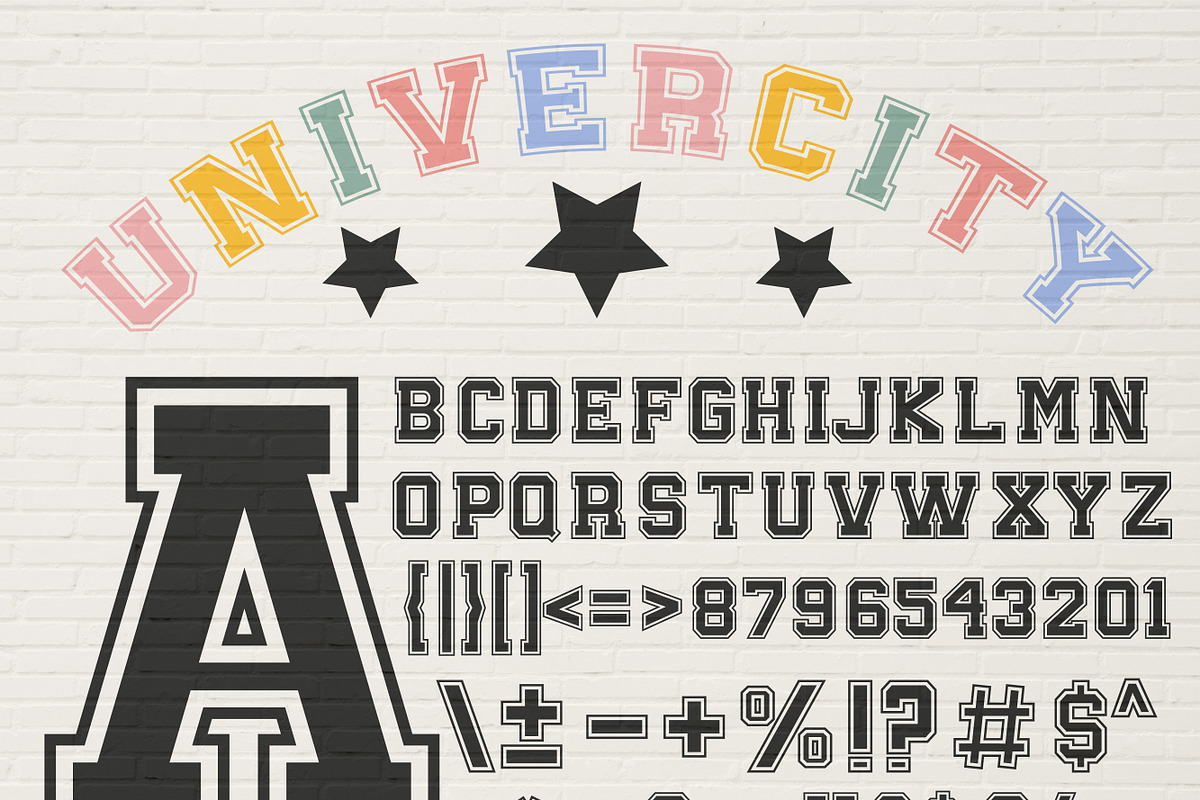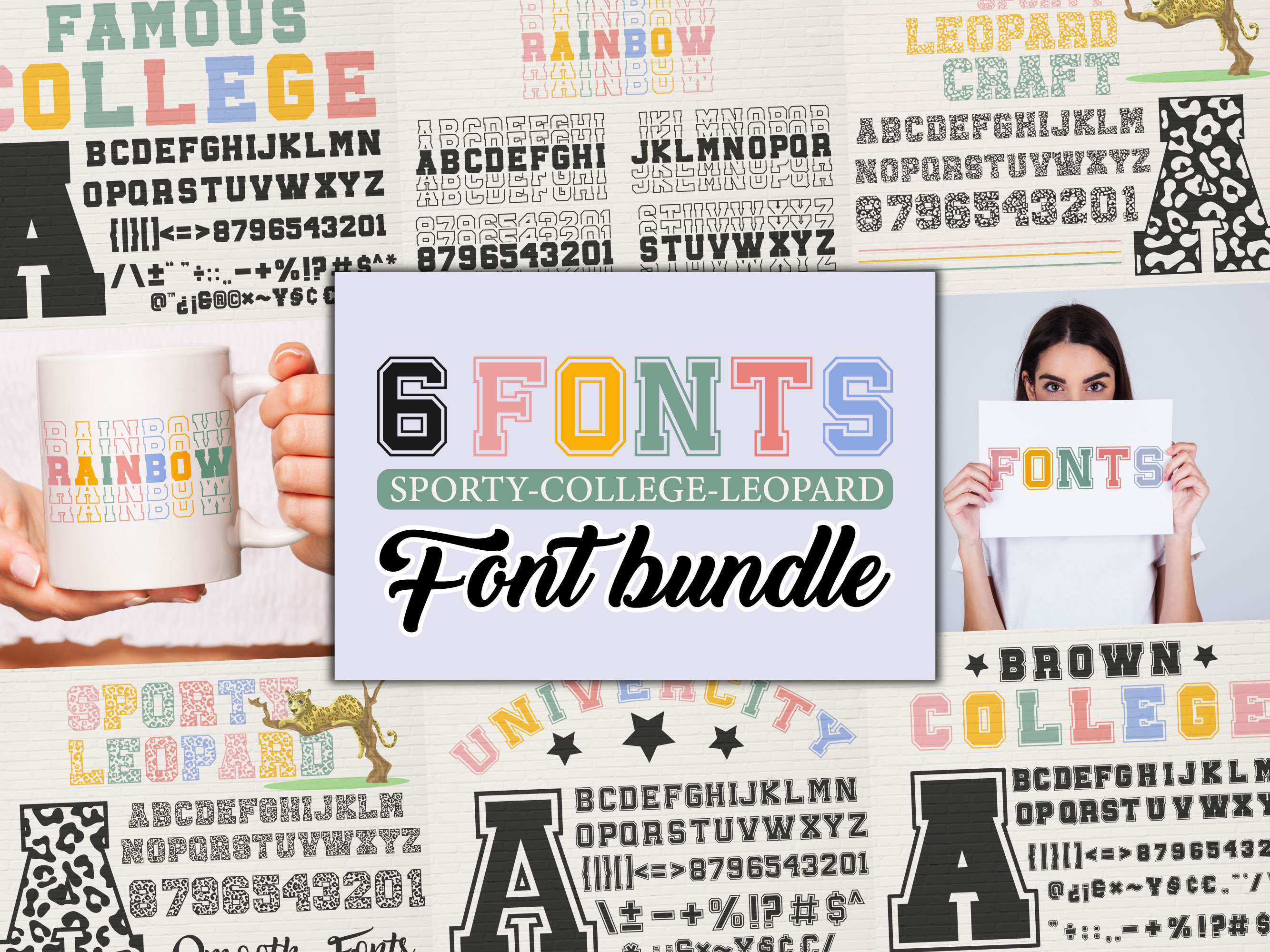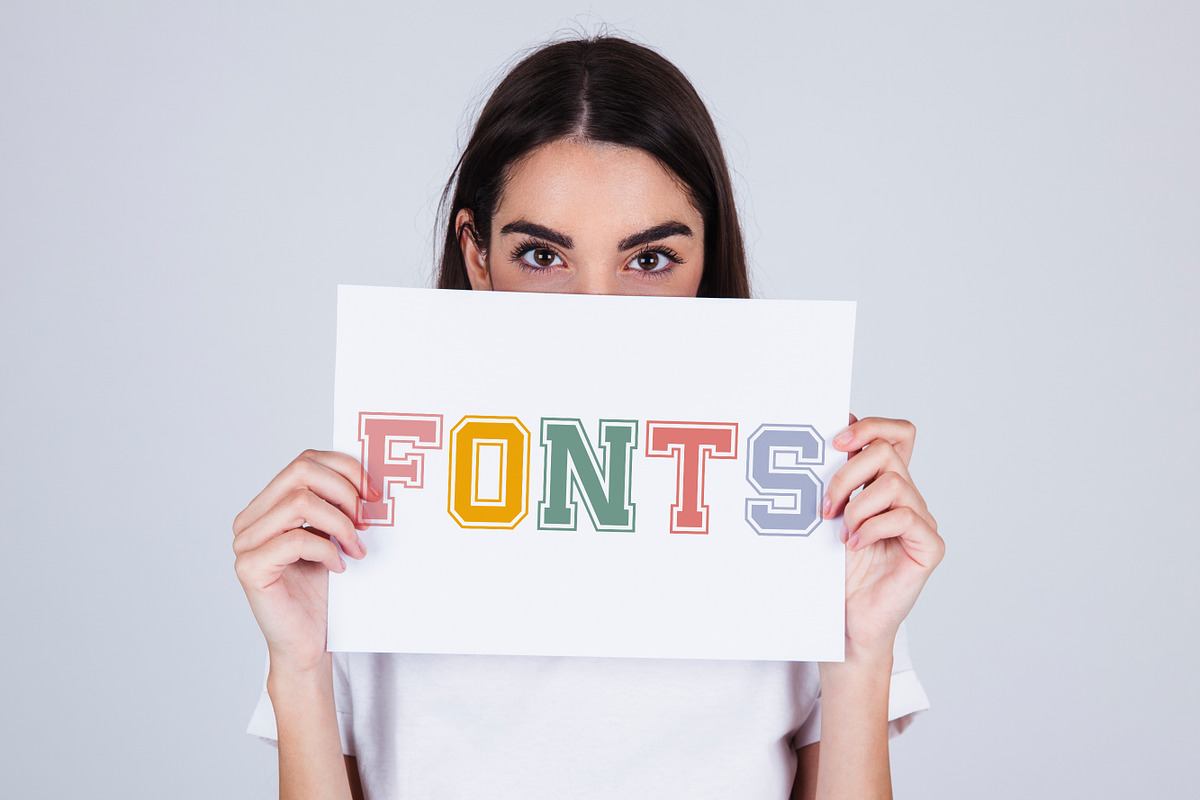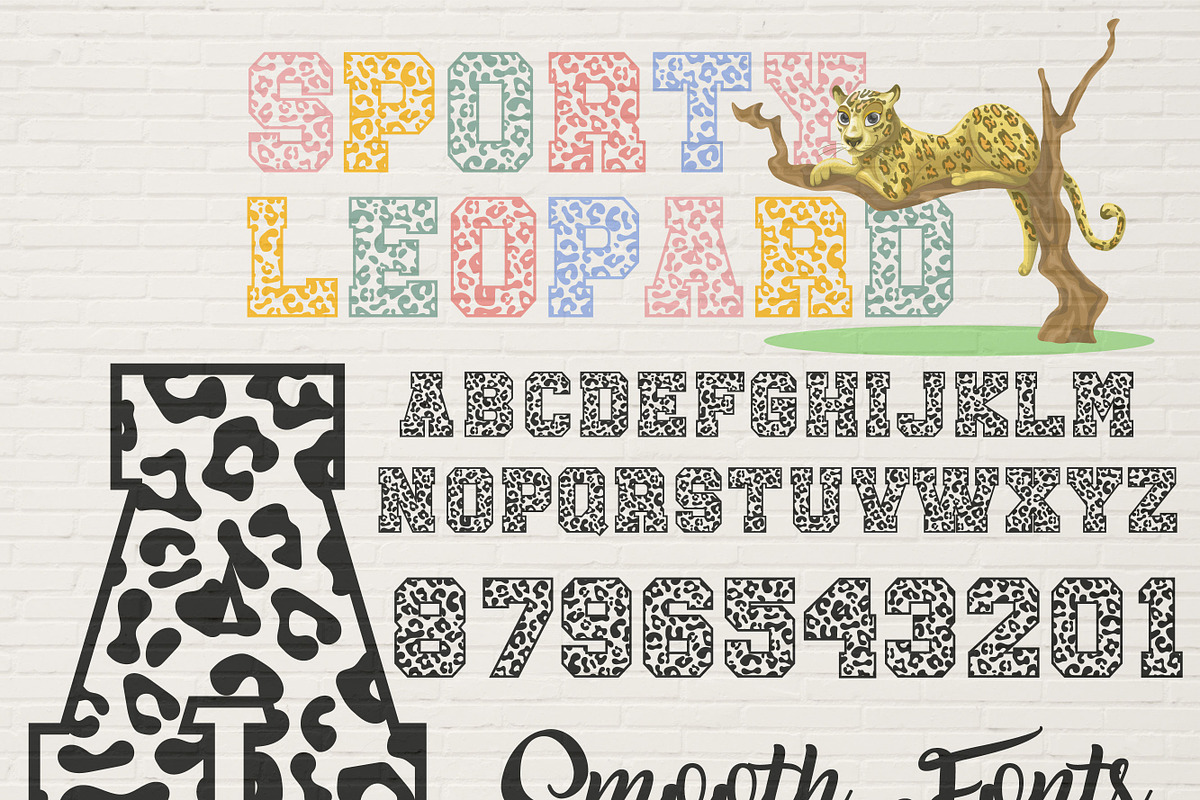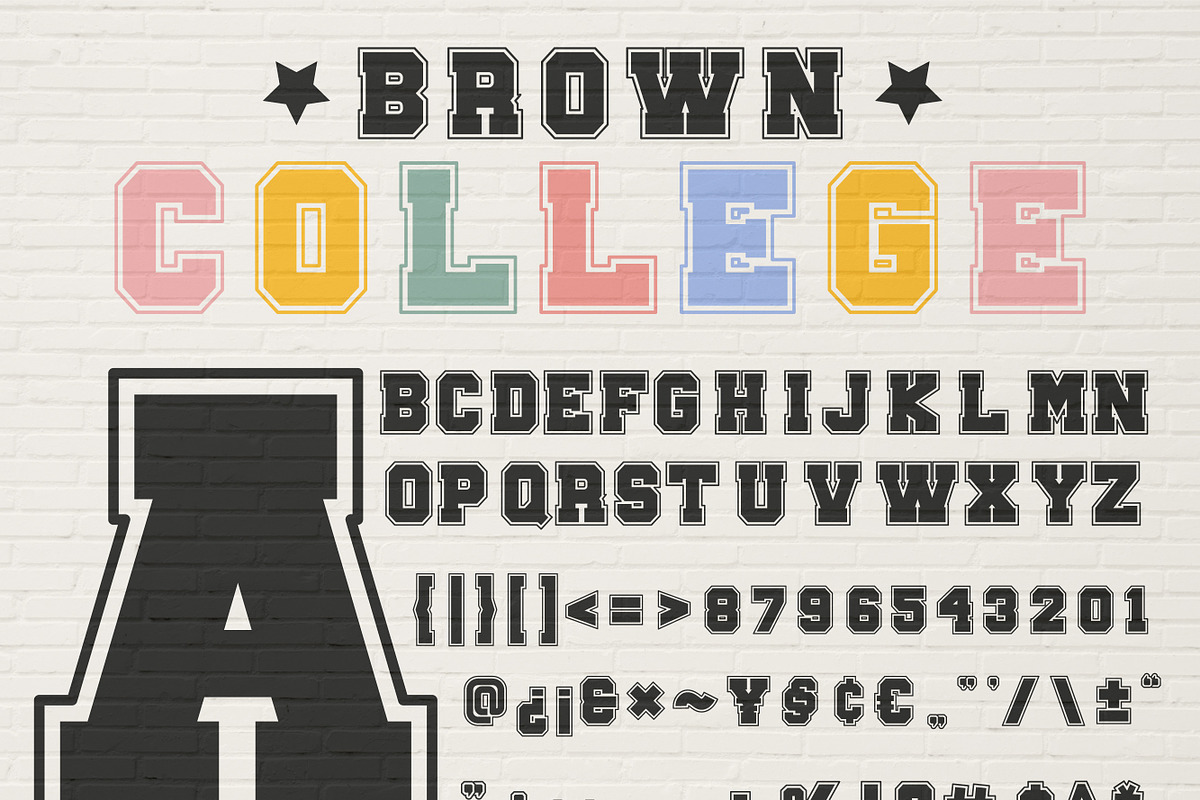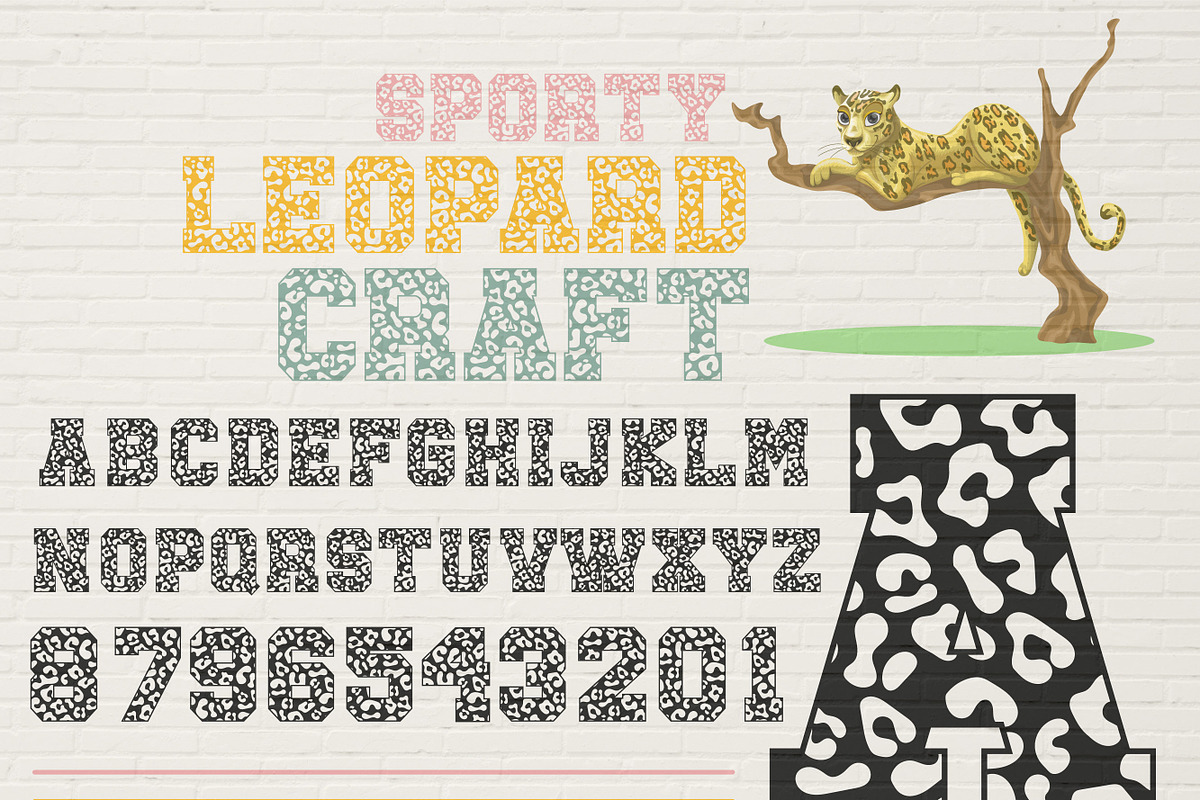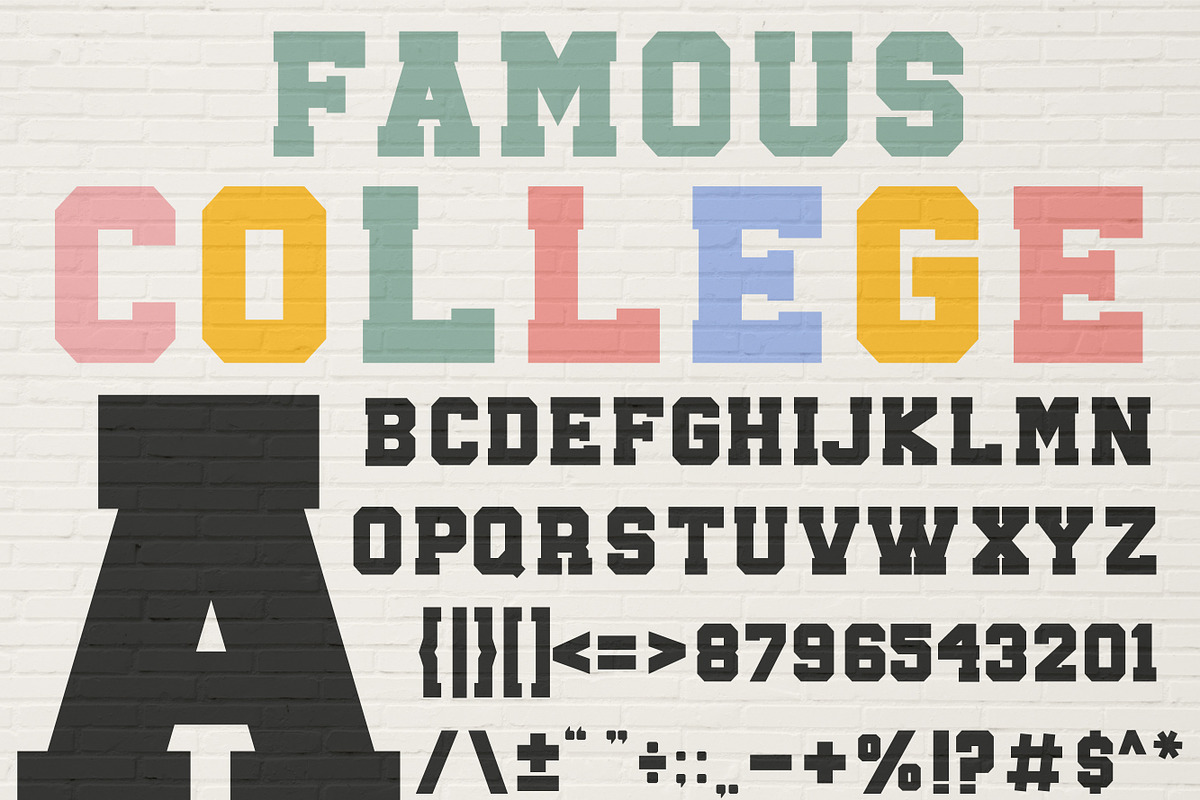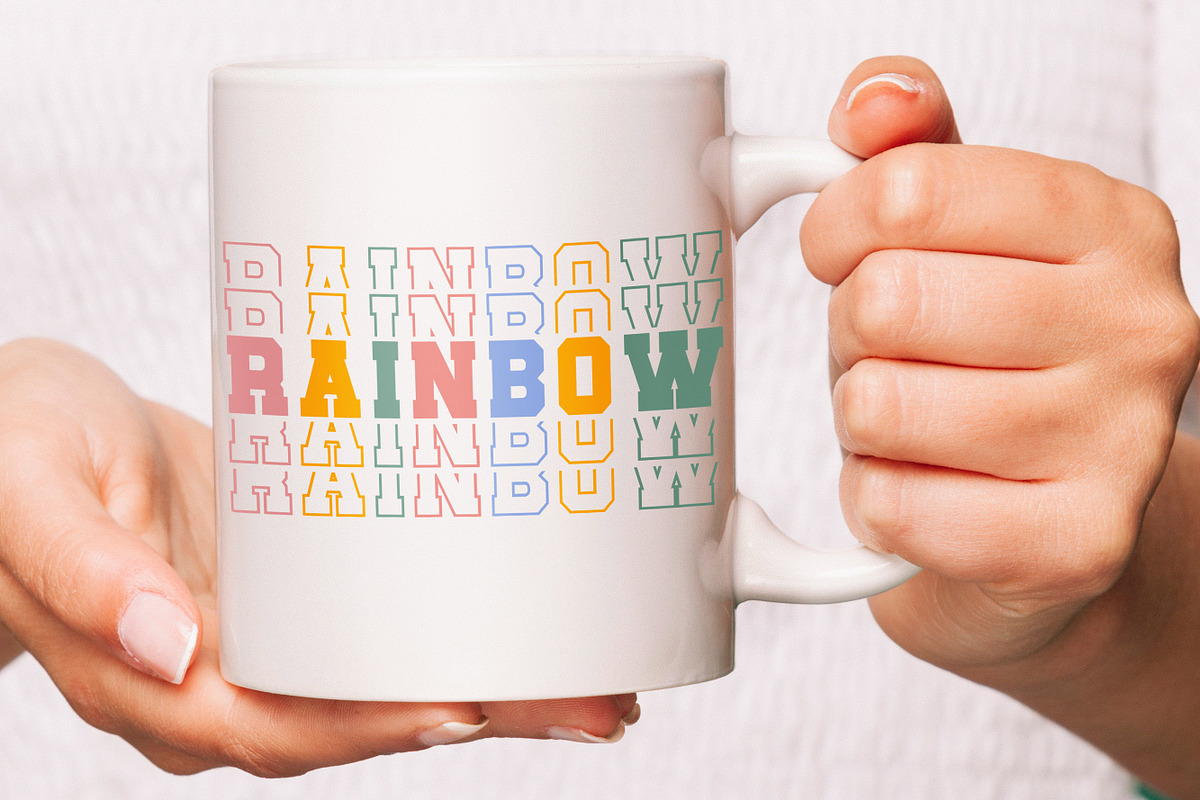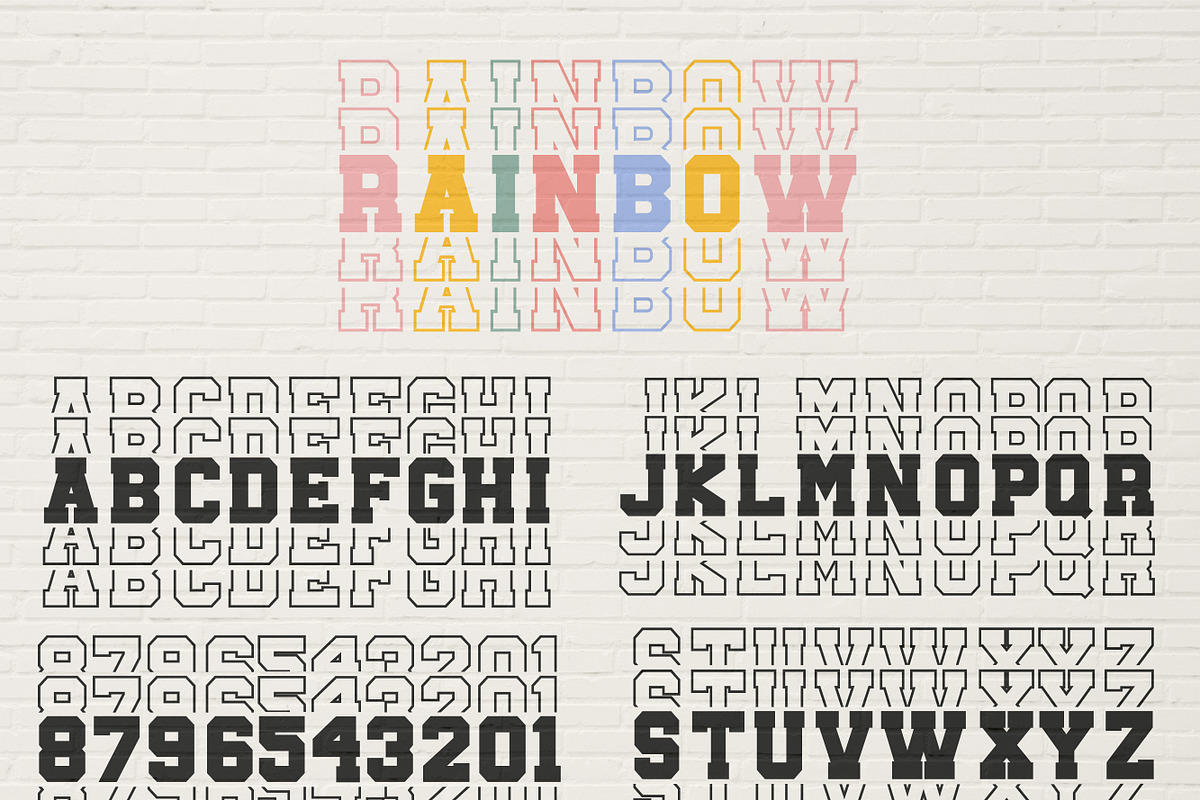
College Font- Sporty Design
✔ College six font styles with leopard two font styles.
These fonts can be used, Sports, Grunge, Mugs, T-shirts, College, University, and Any Craft Idea.